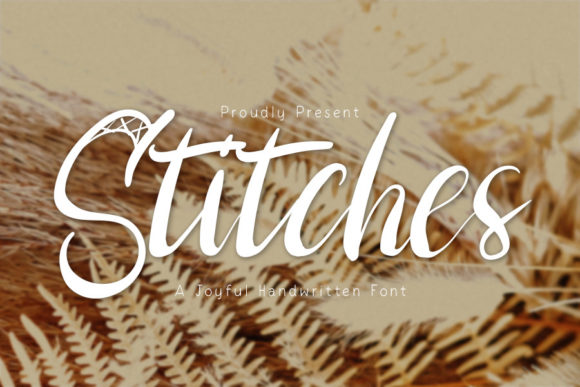
About Stitches Font
Stitches is a lovely and delicate script font that exudes elegance and class. This font was particularly crafted for those who need a beautiful and refreshing look to their designs.